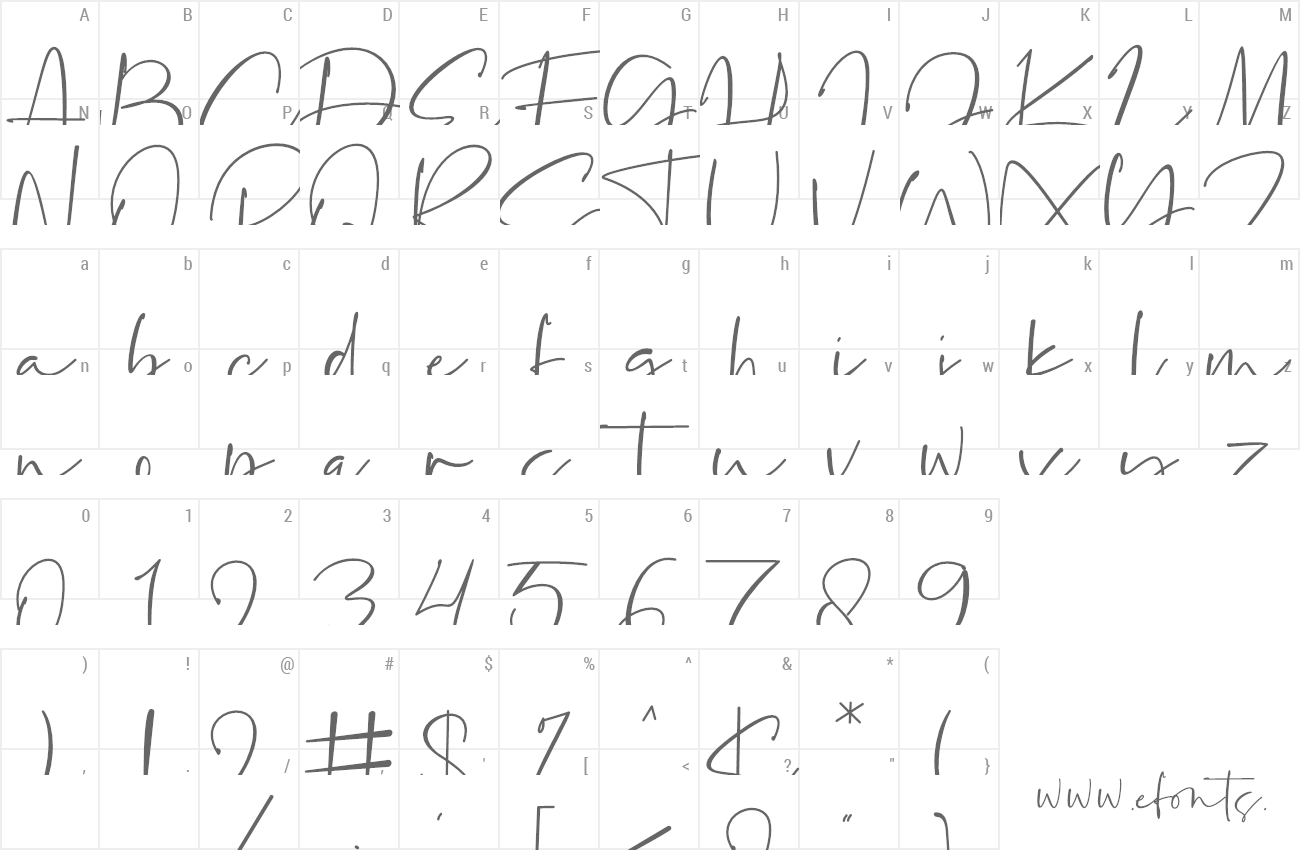
Preview and download La Paloma Font. Created by Fikry Alif in Script Handwritten styles with Free for personal use license.
Hello everyone introduce my new product, La Paloma. La Paloma is a handwritten font, this font is perfect for your needs such as: logos, posters, handwriting, mockup, magazines, business cards and others. only by downloading it you will get two font files, namely: - OTF - TTF if anyone wants to be asked, please contact me at mfikryalif@gmail.com and follow my Instagram to see the latest font updates at @fkryall Note : this font is a personal use , if you will buy and you need for commercial licence please visit link below https://fontbundles.net/fikryal/192984-la-paloma-handwritten-font thank you terimakasih.. warm greetings, fikry |